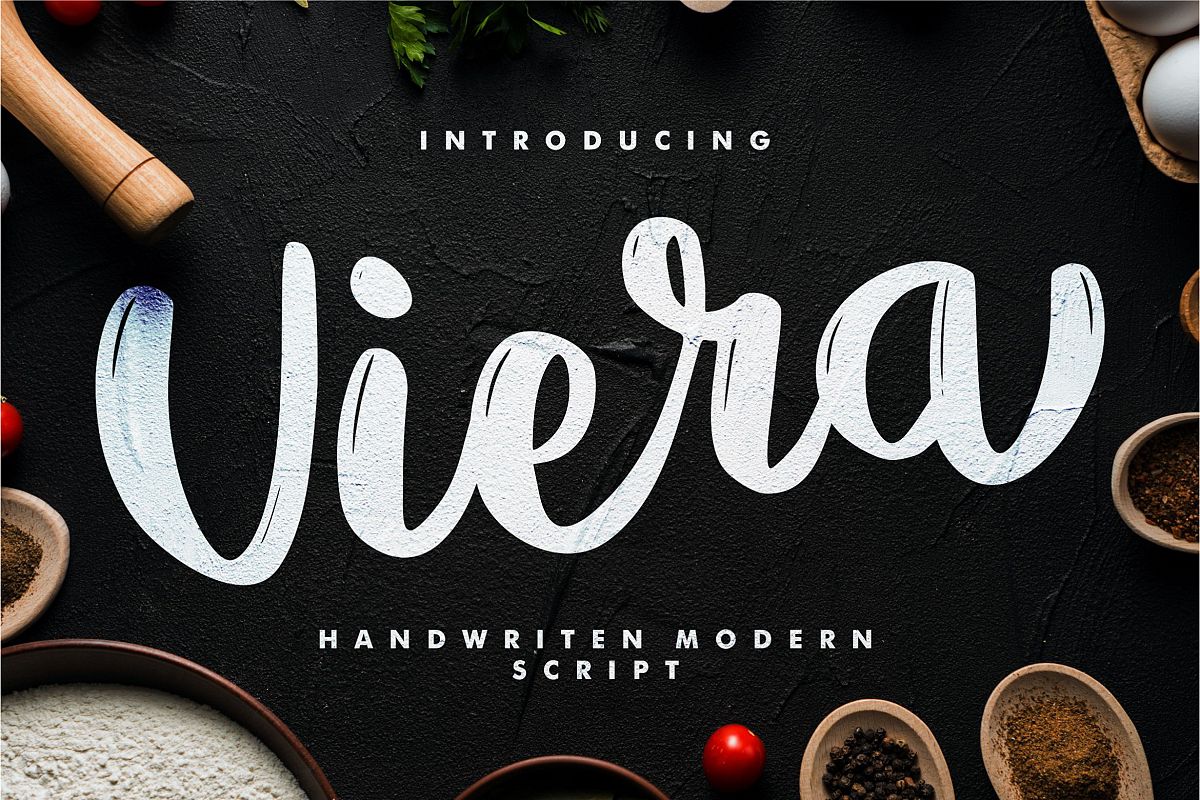
Viera - Handwritten Modern Script
Viera
Viera - Handwritten Modern Script
So beautiful on invitation like greeting cards, branding materials, business cards, quotes, posters, and more!